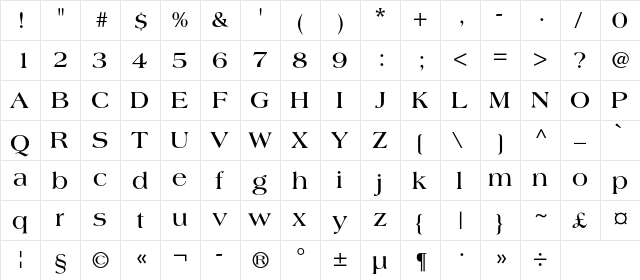
LagunaC Bold
Design Context for LagunaC Typeface
LagunaC takes a measured approach to typography — its balanced proportions and neutral character make it a reliable workhorse for both digital and print work. Its bold stroke weight gives it real presence on the page.
Pro Tip: Pair LagunaC with a font of contrasting weight or personality to build a more expressive typographic hierarchy.